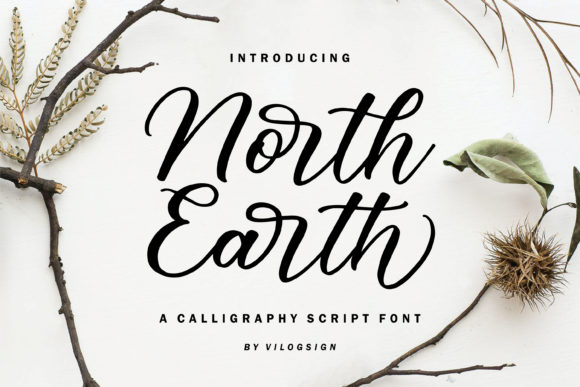
North Earth Font
Escape into the captivating embrace of North Earth, a script typeface that emanates an aura of grace and enchantment. Its fluid strokes dance across the page, leaving an imprint of romance and inspiration. Dive into a world where words blossom and emotions ignite, as North Earth transforms your creative endeavors into ethereal masterpieces. Whether weaving tales on the back cover of an enchanting novel or crafting headlines that captivate hearts, this font will elevate your projects to new heights. Experience the magic of North Earth today and let your imagination soar!
With North Earth, the boundaries of font possibilities dissolve. Its versatility knows no bounds, effortlessly adapting to a myriad of design challenges. From the delicate strokes of greeting cards to the captivating presence of headlines, North Earth graces each application with a touch of elegance. It whispers secrets through the pages of a diary, leaving a trail of heartfelt emotions. It lends its charm to the vibrant world of posters, its flowing curves adding a touch of whimsy to any message.
Step into a realm where creativity flourishes and inspiration flows effortlessly. With North Earth as your guiding light, unlock the depths of your imagination and create works that speak to the soul. Its romantic essence will ignite a flame within your designs, leaving an everlasting impression on all who encounter them. Let North Earth be the brush that paints your words into a captivating symphony, carrying your message across the vast digital sea and into the hearts of those who seek beauty and connection.